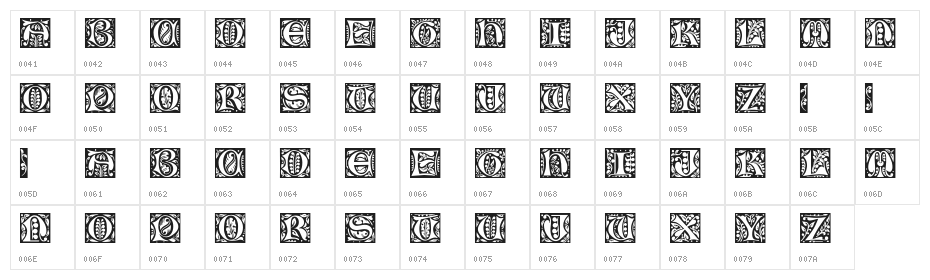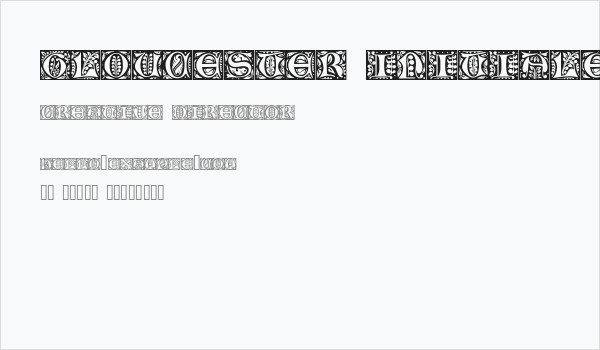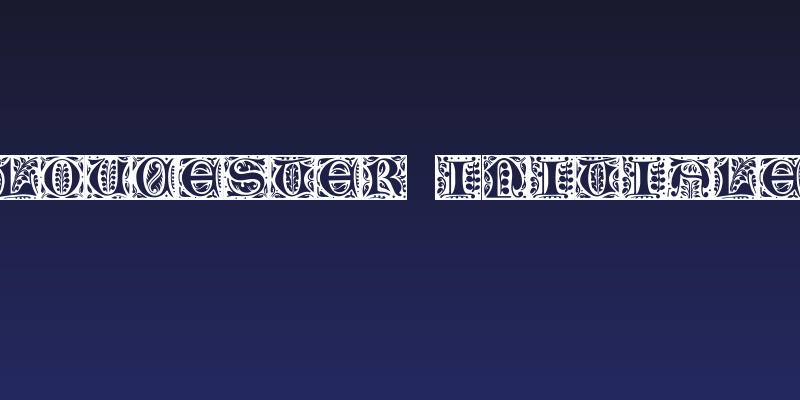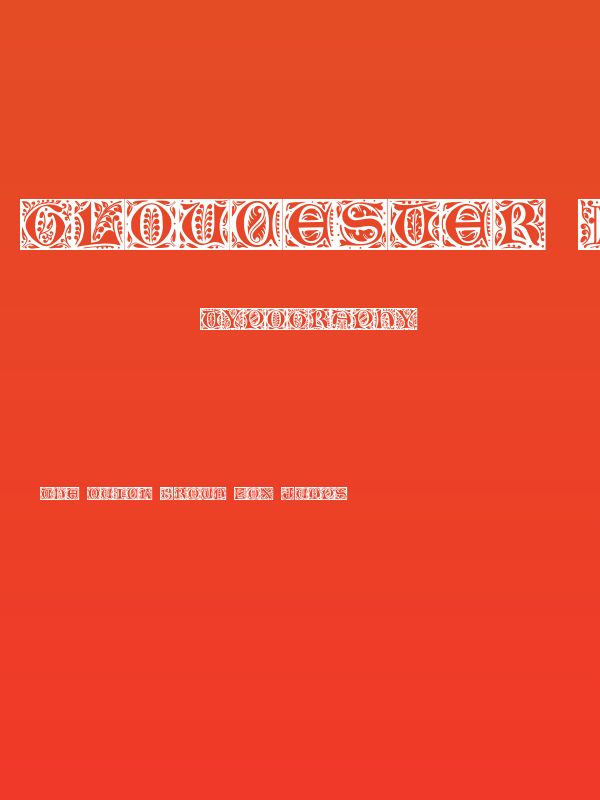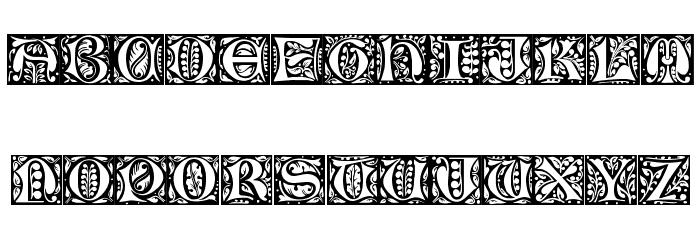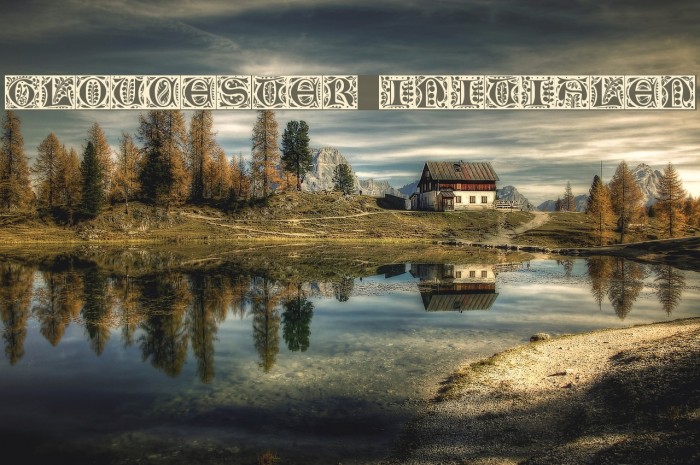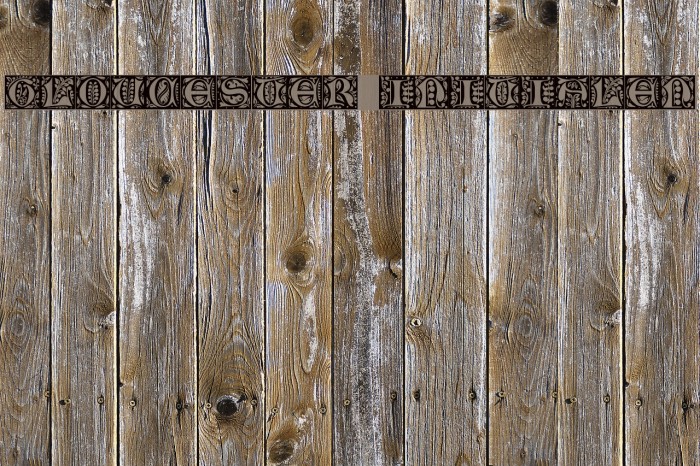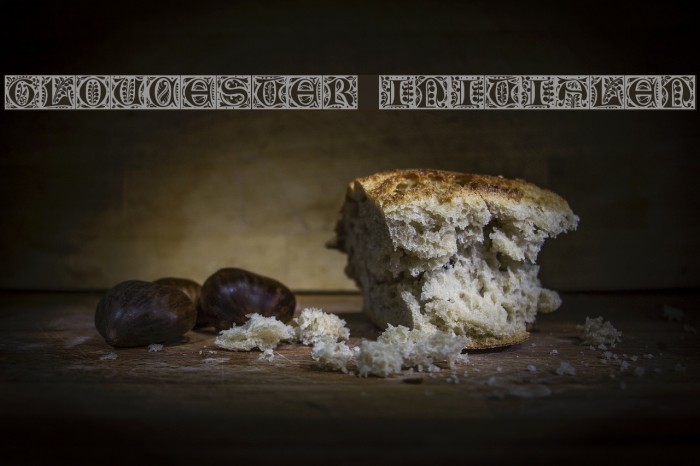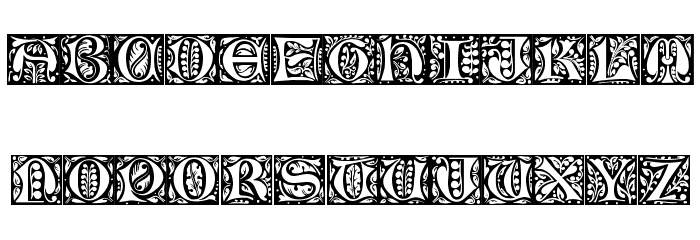
Gloucester Initialen Font
Gloucester Initialen Description
This font is a highly decorative and intricate typeface, characterized by its ornate and elaborate design. Each letter is enclosed within a square frame, filled with detailed floral and vine-like patterns that create a sense of elegance and artistry. The bold, black outlines contrast sharply with the white interior designs, enhancing the visual impact. The style is reminiscent of medieval or Gothic script, making it suitable for projects that require a historical or classical touch. The uniformity of the square frames gives a structured appearance, while the internal designs add a dynamic and lively feel.
| Proposed Projects | Ideal for use in invitations, certificates, book covers, or any project requiring a historical or classical aesthetic. |